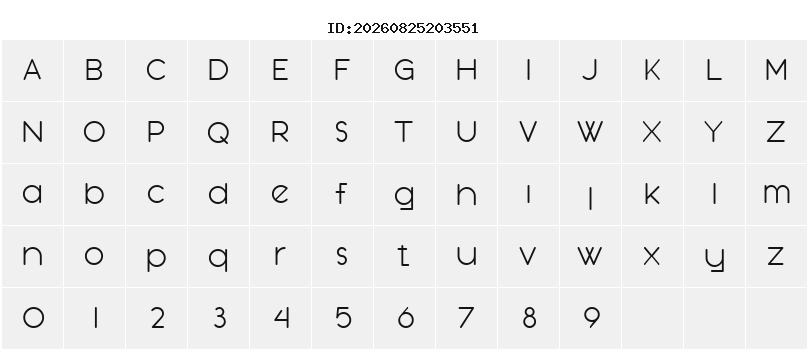
SF Orson Casual Light Preview
• Font Name: SF Orson Casual Light
• Full Font Name: SF Orson Casual Light
• Designer: ShyFonts Type Foundry
• Description: SF Orson Casual Light is a trademark of the ShyFonts Type Foundry.
About SF Orson Casual Light.ttf
SF Orson Casual Light.ttf is a modern, elegant sans-serif font designed for ultimate readability and visual harmony. Perfect for branding, headlines, web design, and print materials.